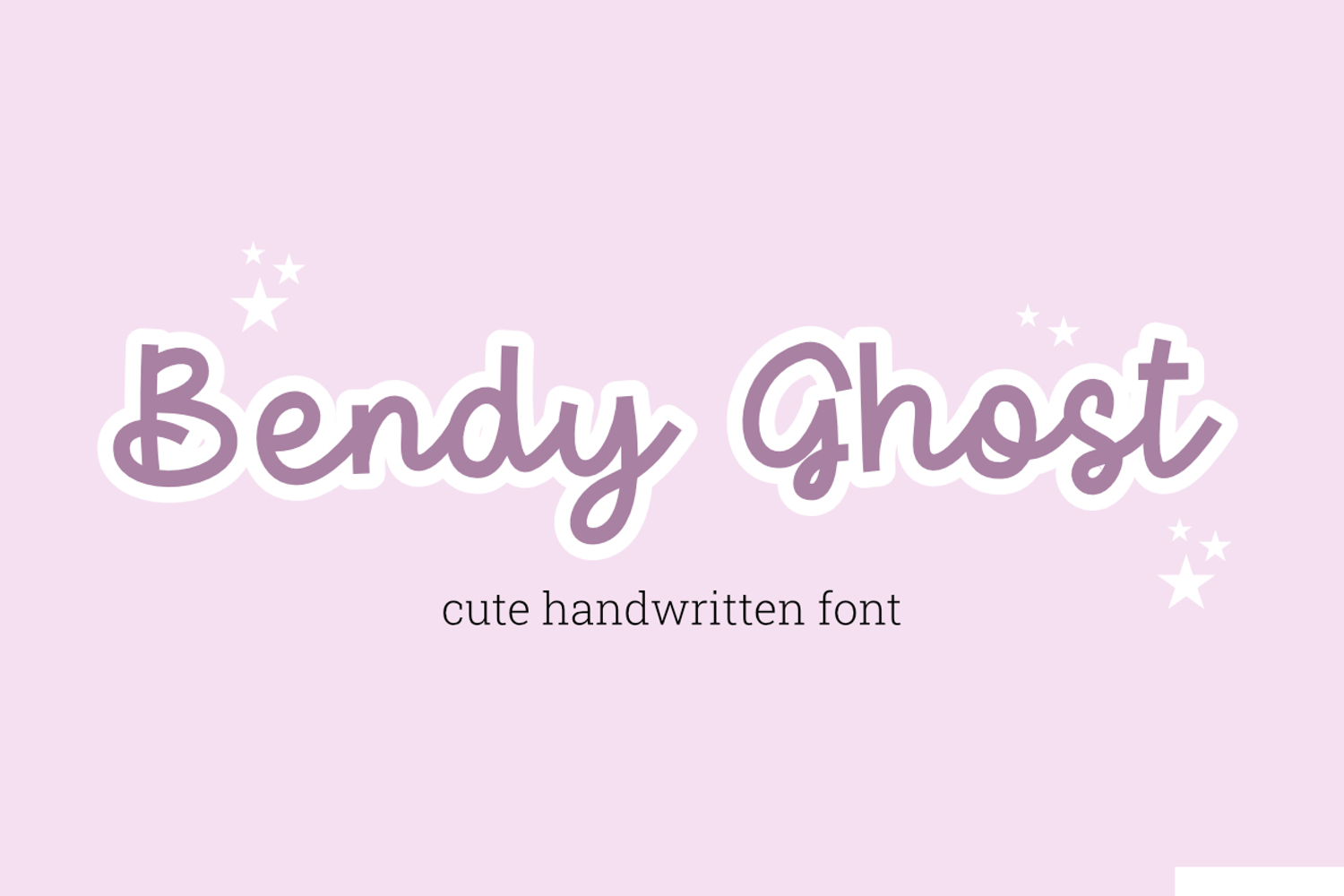
Bendy Ghost
Bendy Ghost is a cute handwritten script font.
This font is perfect for cricut projects, logos, shirts, svg files, teachers, Valentine's Day designs and more!
Bendy Ghost